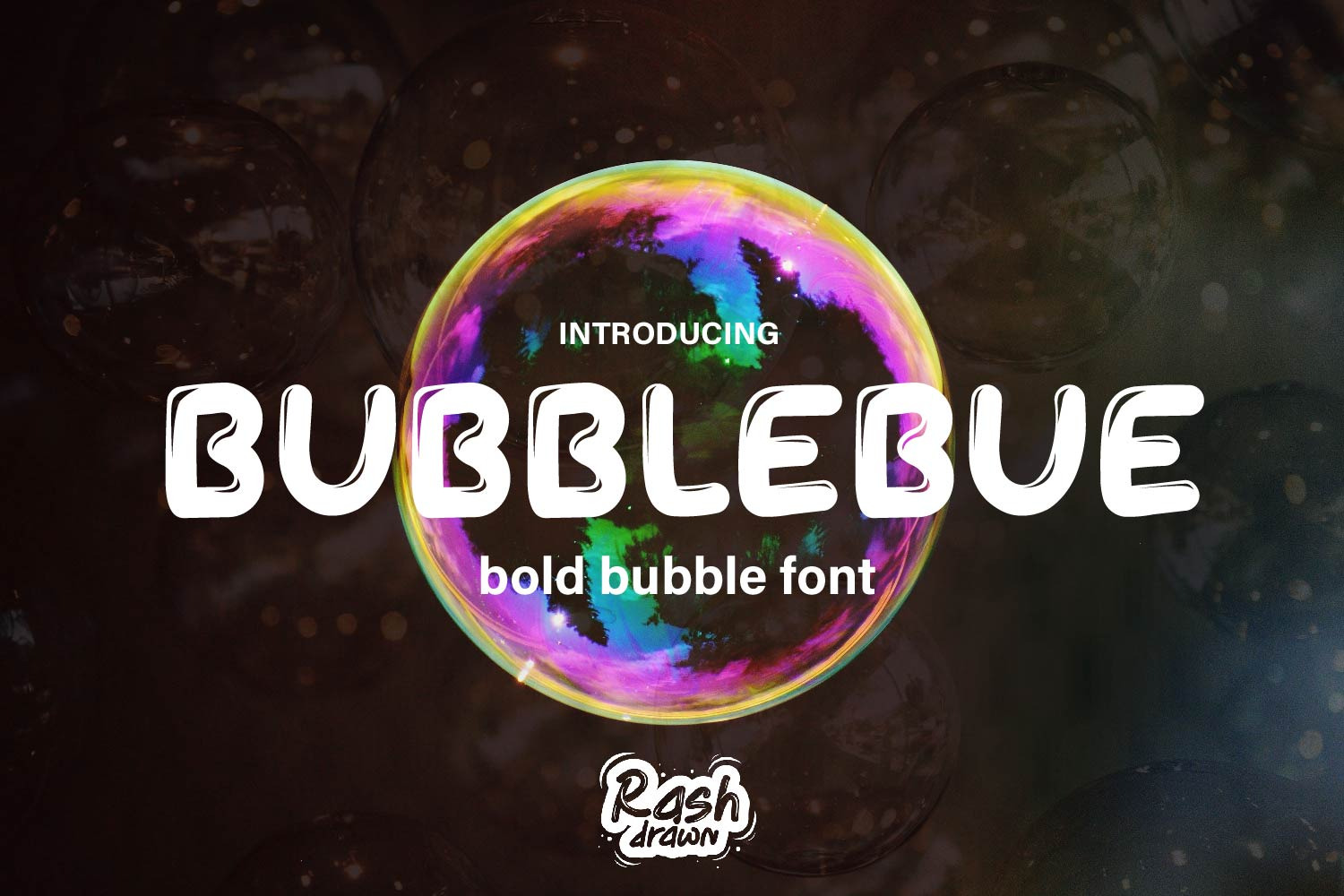
Bubblebue Bold bubble font
Bubblebue is a fun and friendly bubbly display font. Use it to turn any design idea into a true standout. Get inspired by its unique charm and create lovely designs.